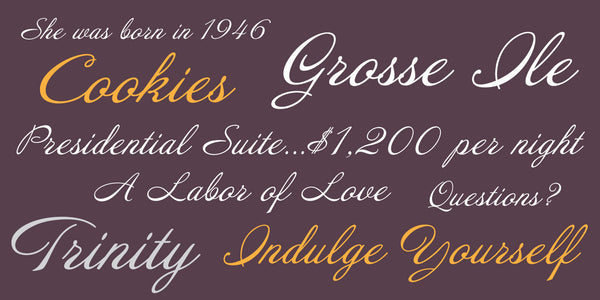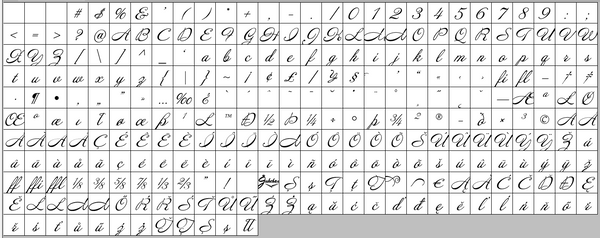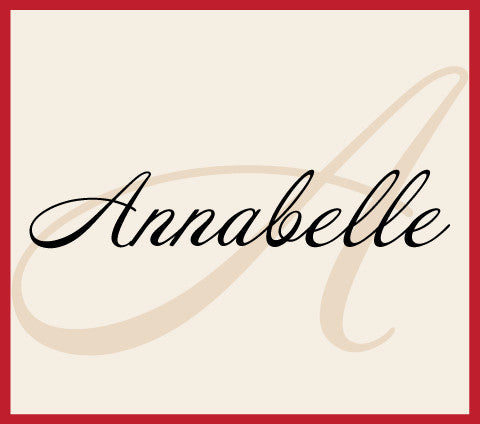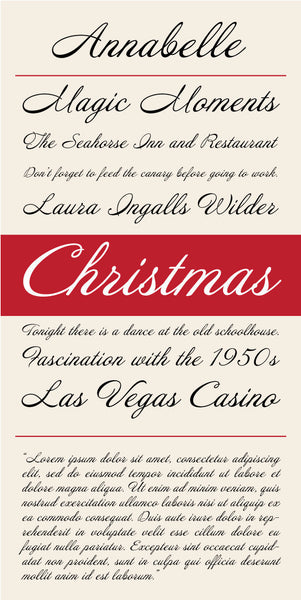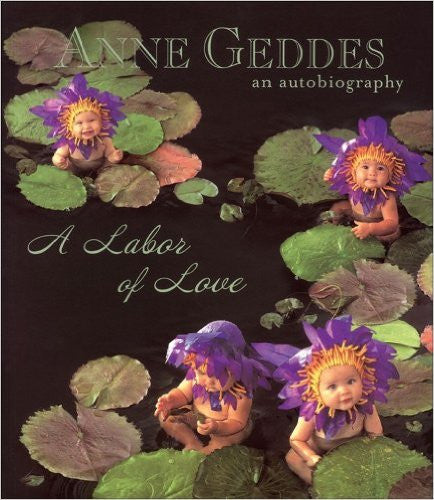
Annabelle
Annabelle is a beautiful script font from Jukebox that is named after the designer's mother. Flowing and elegant, Annabelle was inspired by a sample of hand lettering The font invokes all the sweet and charming femininity of a script font. Perfect for wedding invitations, book covers and any design that requires an approachable style.
Notable Use: Annabelle was used on the cover and chapter headings of Anne Geddes' book "A Labor of Love". She is known for her attention to detail, so likely was involved in choosing (or approving) my typeface for the book design.